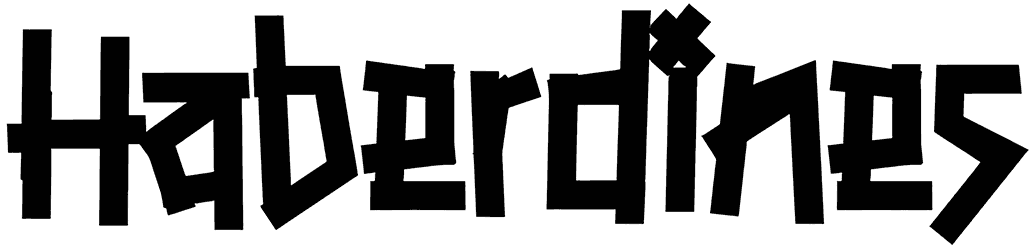
Haberdines Font
With a kid’s font like this offer, your design will have a vivid and playful visual that can impress a lot of visitors. The cute characters of this cartoon font are perfect for a back-to-school flyer; they will convey an exciting feeling. Haberdines font doesn’t have all of the numbers, but let’s try it for your next project and see how the result will be.